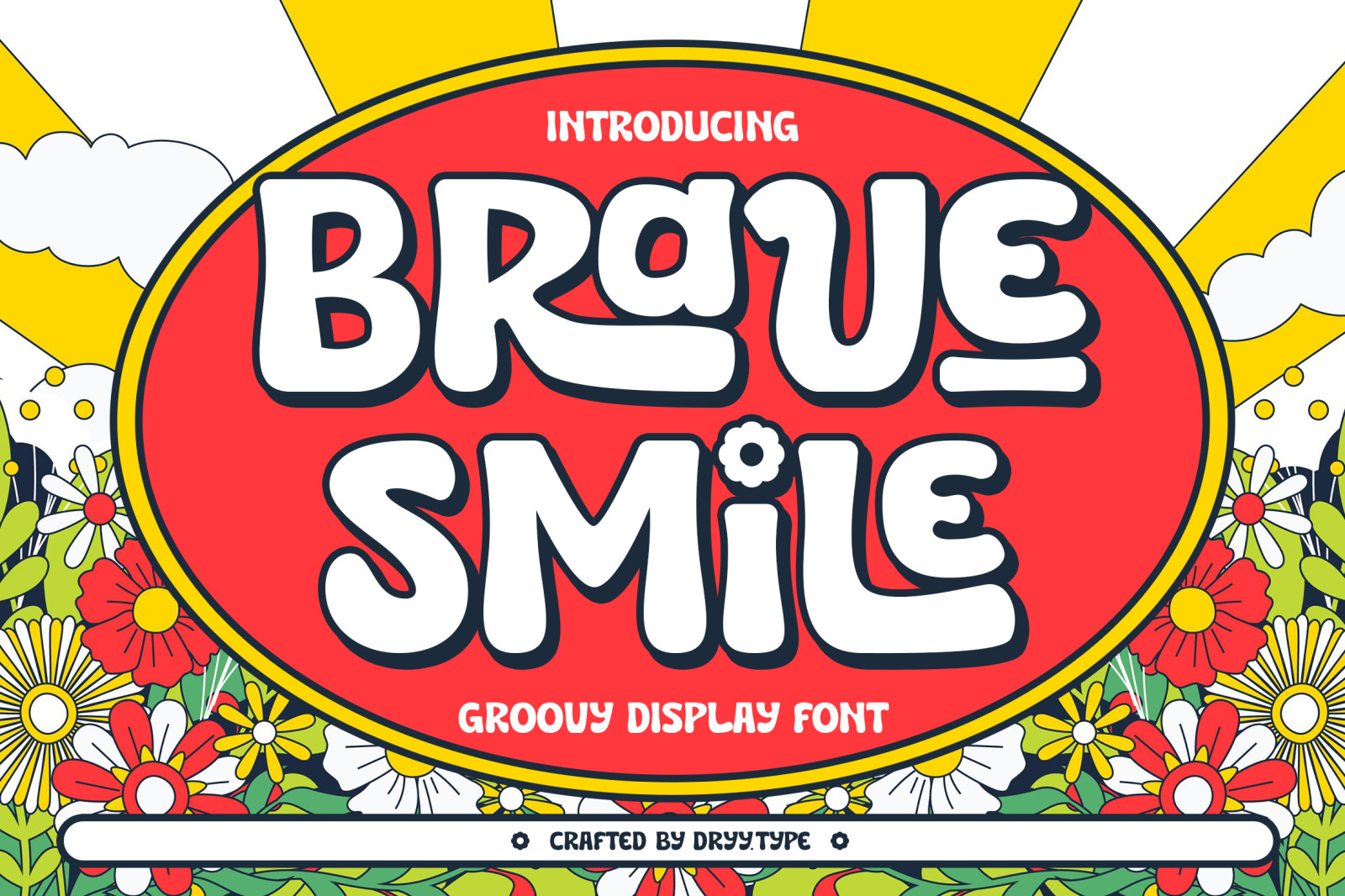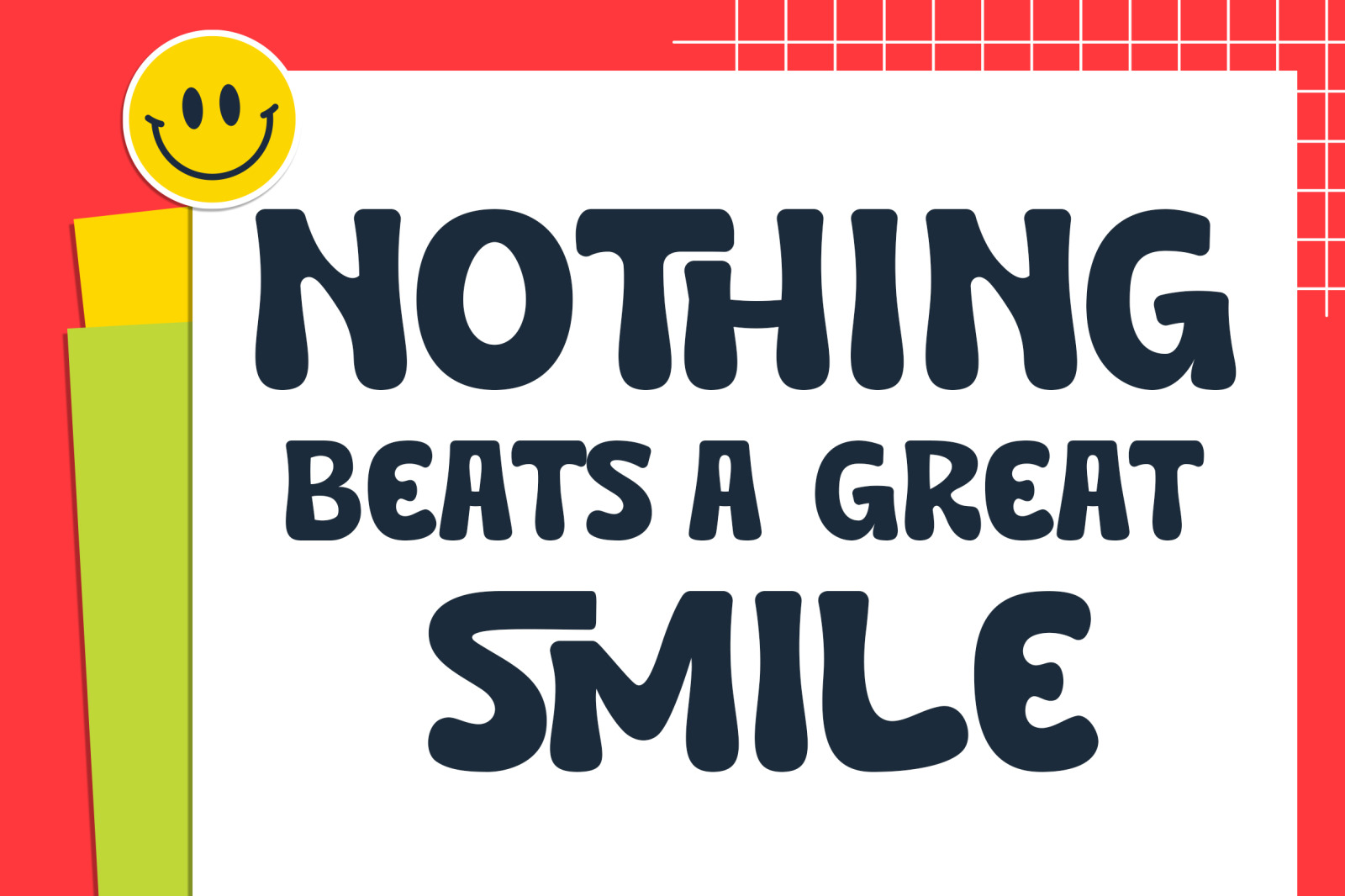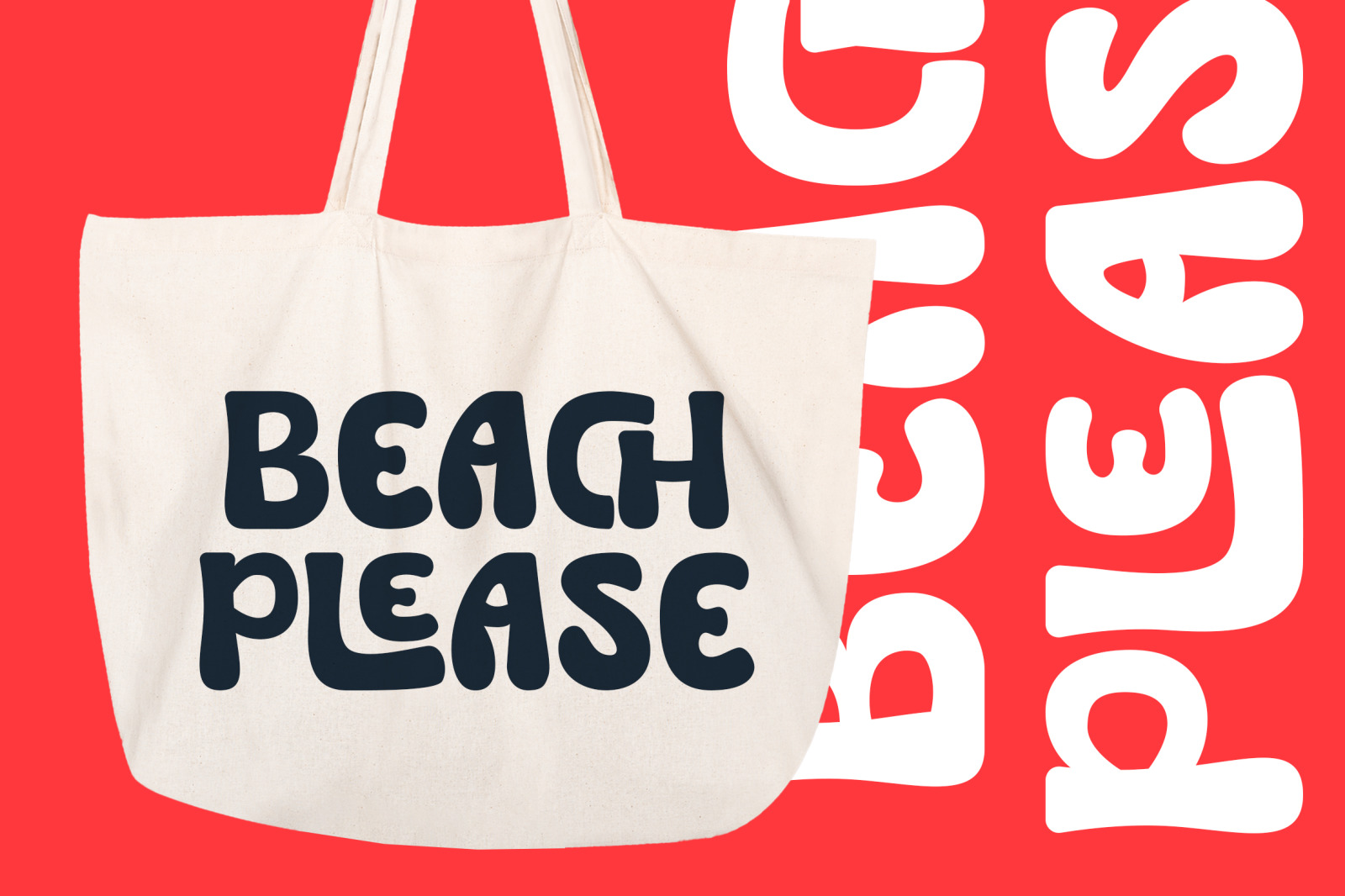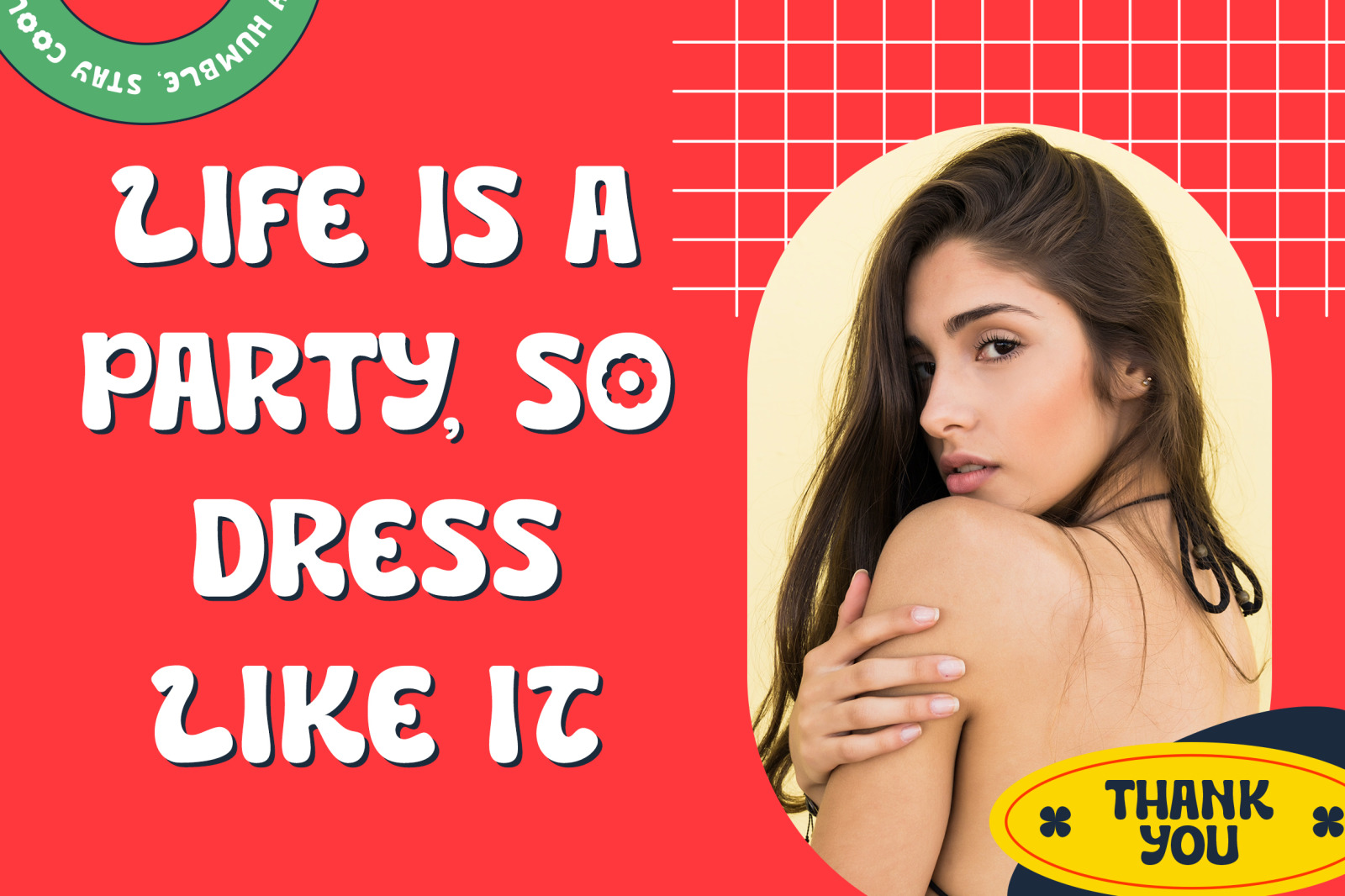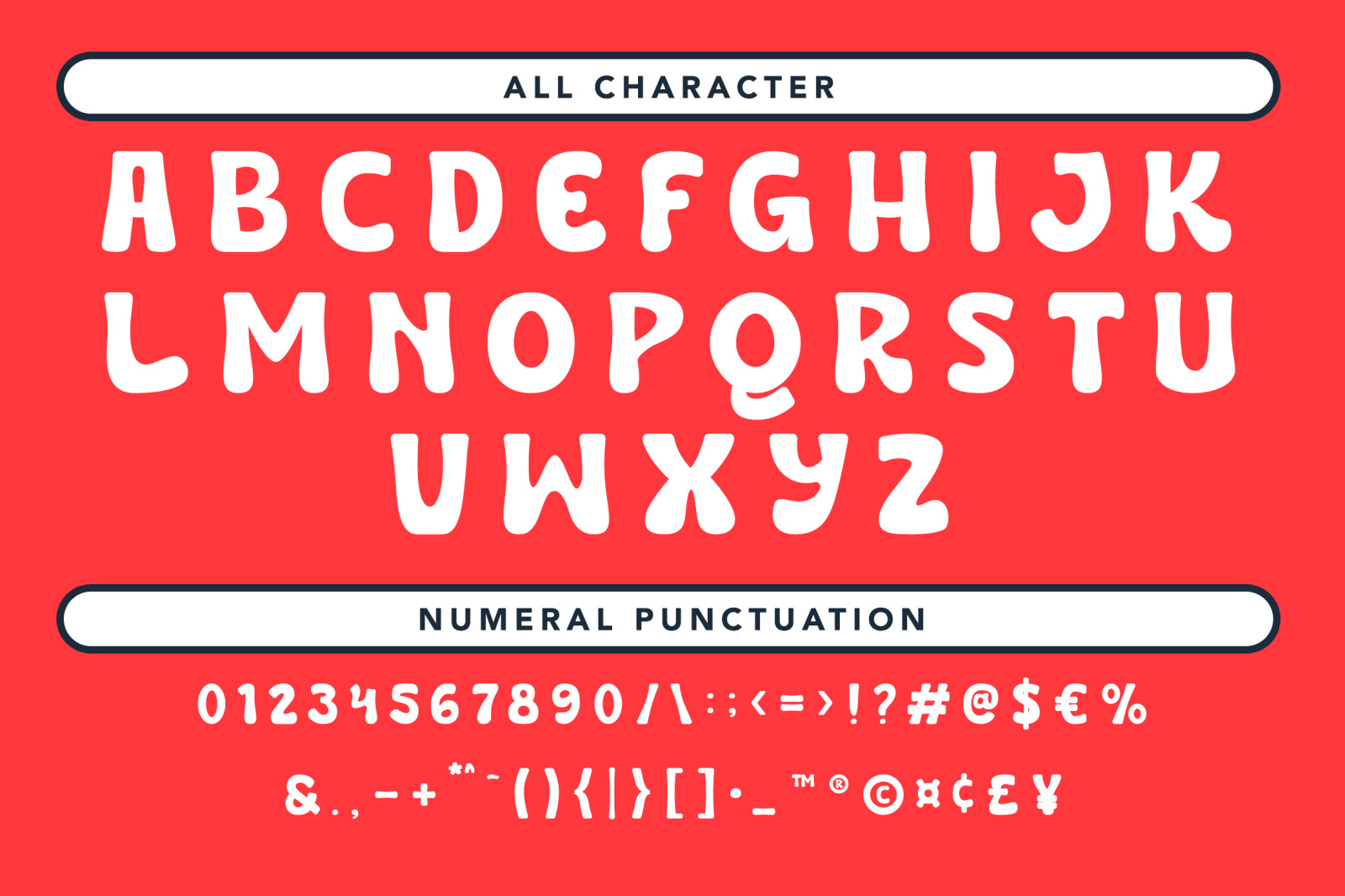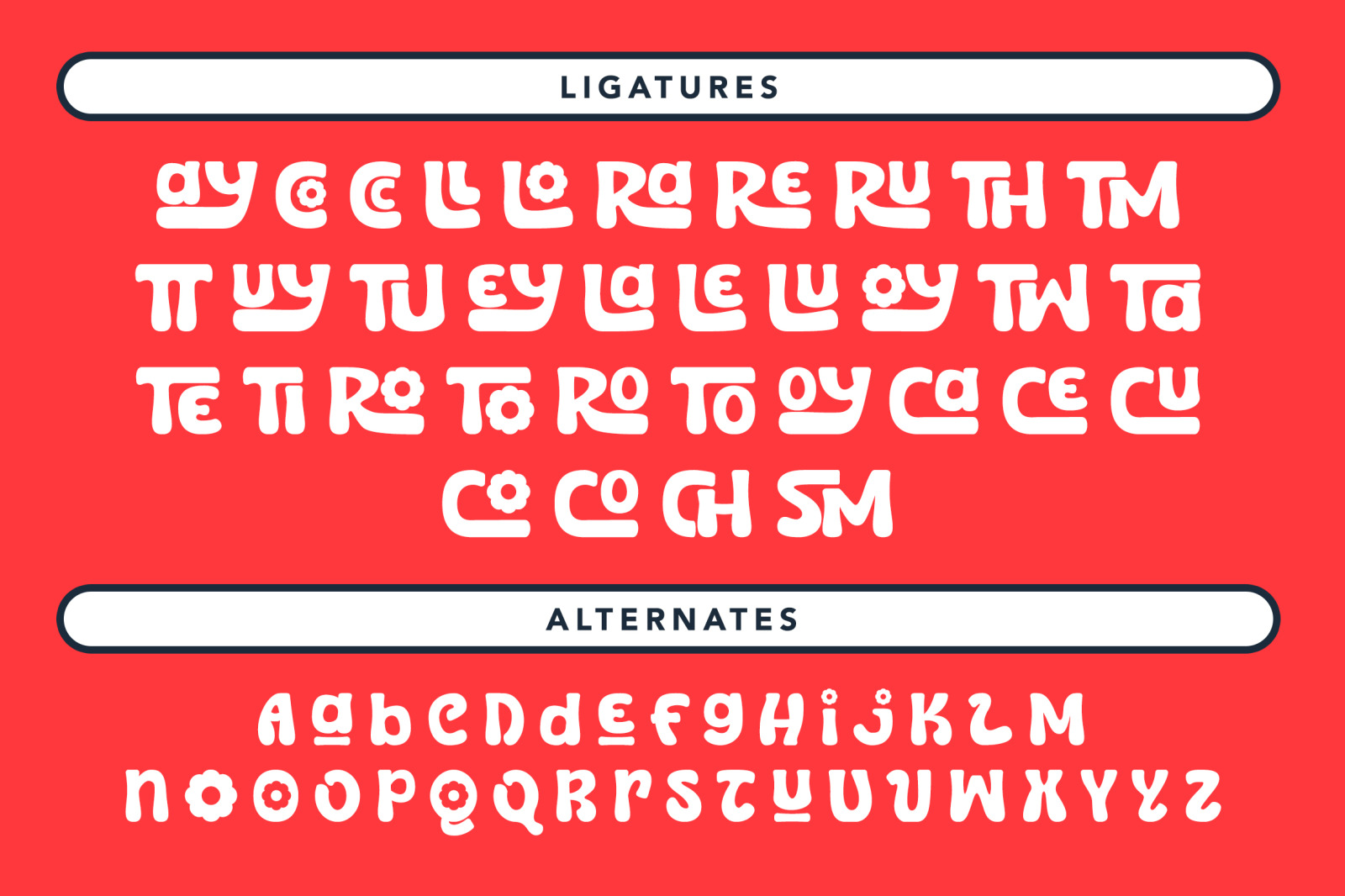
Brave Smile - Groovy font
Brave Smile Font
The Brave Smile font is a cute and fun font. This font I created has been very much used this year & is very versatile, it goes well with a variety of designs, elevating it to the highest level. Add this font to your favorite creative ideas and see the results!
Features: Uppercase, Lowercase, Alternate, Ligature & Multilingual Support